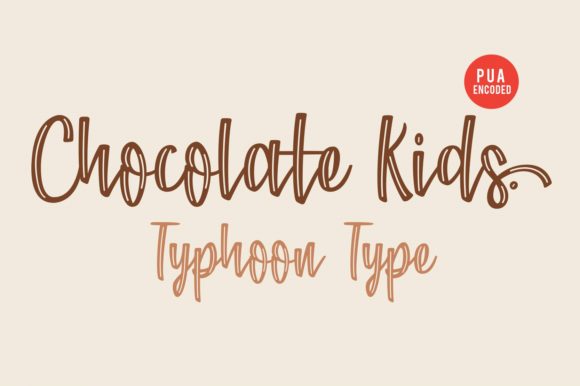
Chocolate Kids Font
About Chocolate Kids Font
Chocolate Kids is a sweet and whimsical script. It’s the perfectly playful font to add a magical feel to any kid-friendly craft idea.